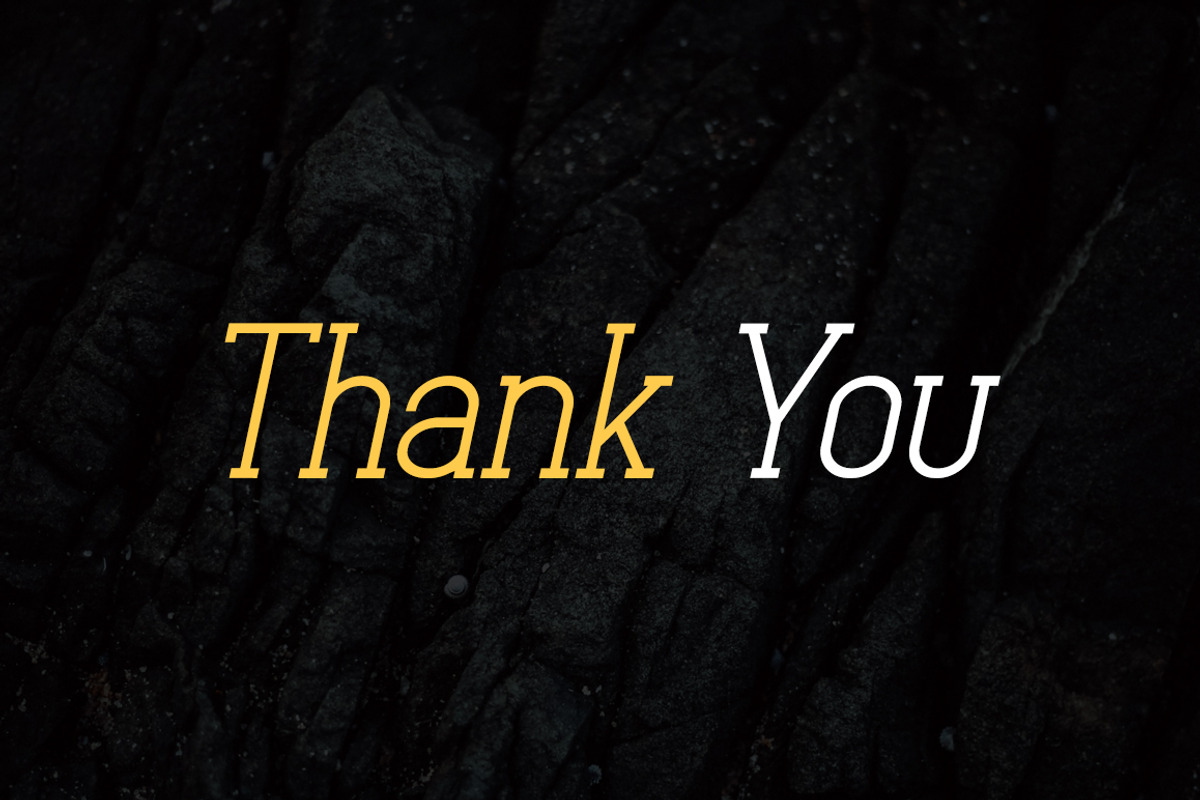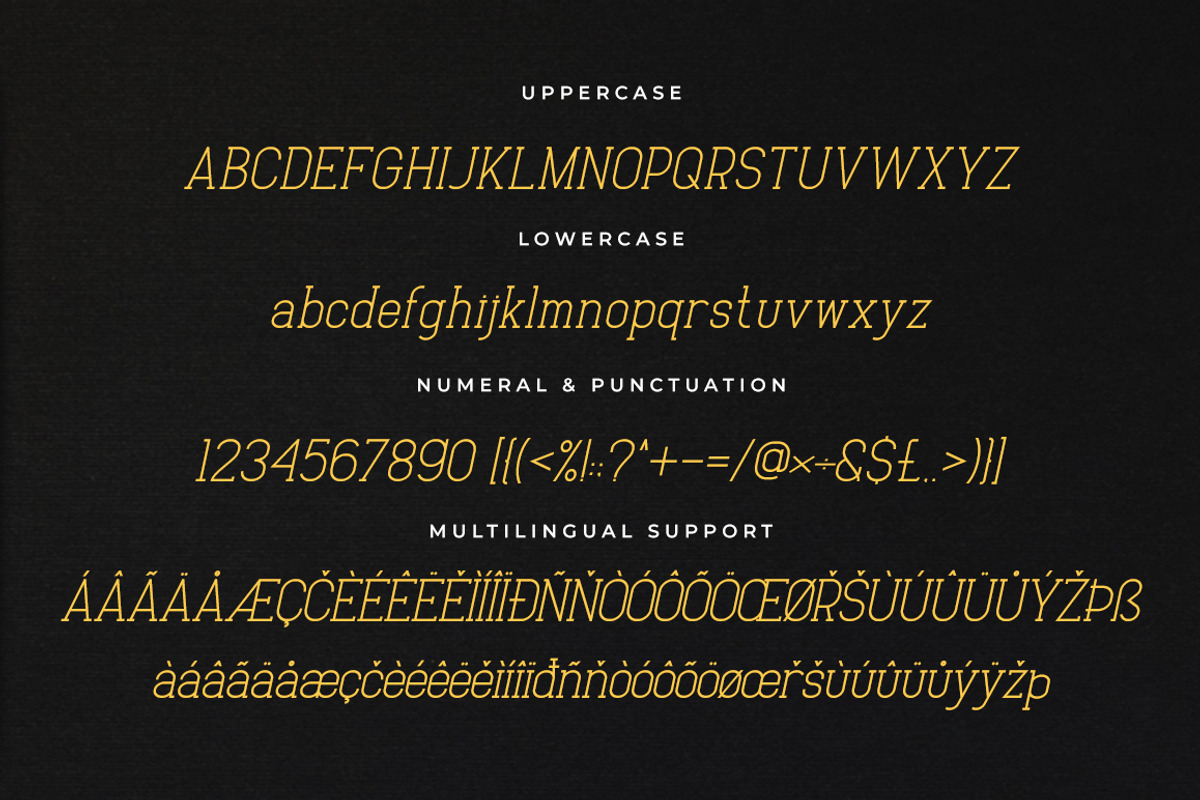
Baxley Modern Slab Serif
Baxley is a modern and elegant slab serif font. It features a classic feel that will look particularly adept when used in logos, branding, packaging design, headlines and much more. This masterfully designed font is a true must-have. The different weights give you full range to explore a whole host of applications, from tech startup, local events to sports matches.
- Seven weights and Italics
- Multilingual Support : ÁÂÃÄÅÆÇČÈÉÊËĚÌÍÎÏÐÑŇÒÓÔÕÖŒØŘŠÙÚÛÜŮÝŽÞß àáâãäåæçčèéêëěìíîïðñňòóôõöøœřšùúûüůýÿžþ